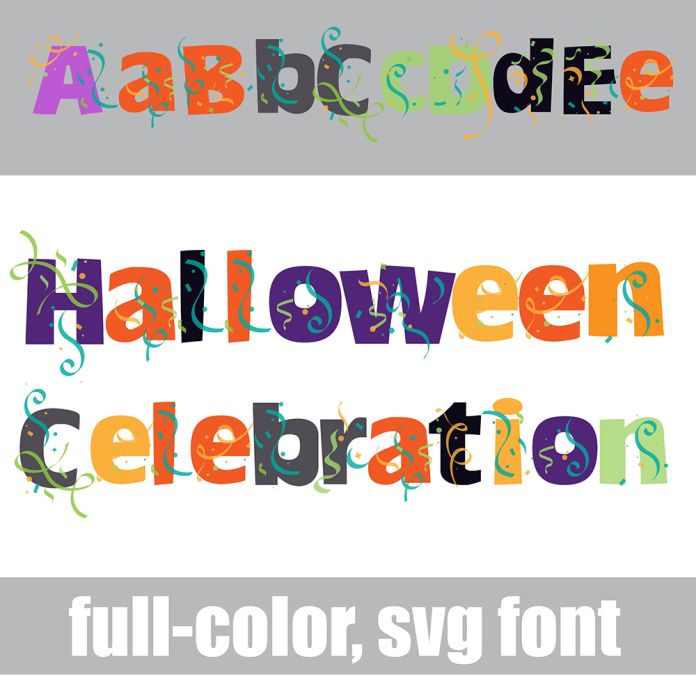
This full-color font features heavy sans serif lettering with confetti and a Halloween color palette. There is an alt upper and lowercase with additional colors that you can access through Silhouette's glyph map. This font works best for titles, displays, posters and more. Please note color fonts will show as black in non compatible programs. This font type is compatible with Silhouette Studio.